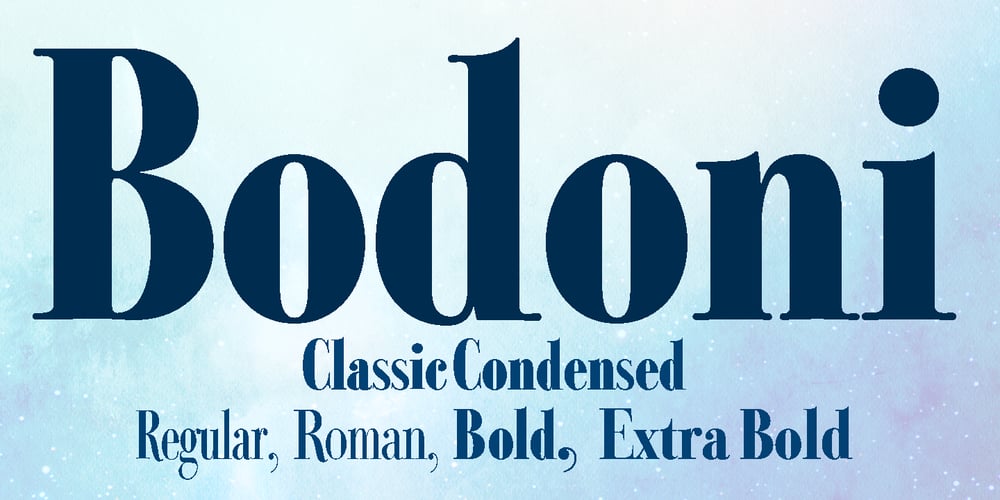
Bodoni Classic Condensed Font Family was designed by Gert Wiescher and published by Wiescher Design. Bodoni Classic Condensed contains 4 styles and family package options. Bodoni Classic Condensed is another personal addition to my Bodoni Classic family. Giambattista never designed a condensed typeface, but I think it is really fitting into the family. Yours, family minded, Gert Wiescher